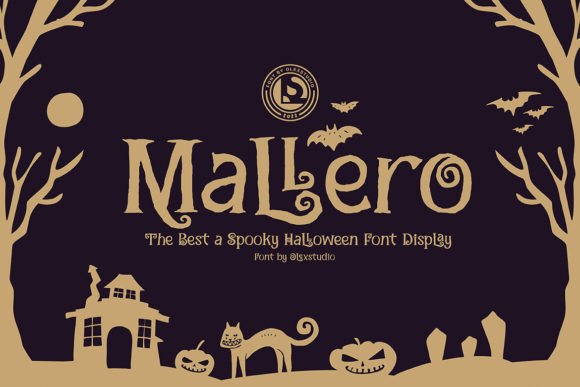
Prepare to be mesmerized by Mallero Font, the dazzling display font that will cast a spellbinding charm on all your creative endeavors. Immerse yourself in the haunting beauty of Halloween with this font, meticulously crafted to evoke the spine-tingling allure of the season. Whether you're conjuring an enchanting invitation or weaving the tale of a ghostly poster, Mallero Font will be your trusted companion.
Unleash your imagination and let Mallero's enchanting curves and captivating strokes transport you to a realm of endless possibilities. Elevate your book designs to spine-chilling heights, crafting covers that whisper tales of mystery and intrigue. With Mallero, your branding materials will exude an aura of enchantment, leaving an indelible mark on your audience. Logos adorned with Mallero's captivating characters will radiate a sinister elegance, capturing attention and igniting curiosity.
Mallero Font's versatility extends beyond the digital realm. Its bewitching presence will enhance any physical project you undertake. Engrave Mallero's characters onto wooden signs, creating eerie decorations that will set the mood for your Halloween gatherings. Embroider Mallero's haunting glyphs onto fabric, crafting spellbinding garments and accessories that will turn heads wherever you go.
With Mallero Font, the creative possibilities are as boundless as the night sky on Halloween. Whether you're a seasoned designer or just starting your artistic journey, Mallero will empower you to manifest your most haunting visions. Its user-friendly nature makes it accessible to designers of all skill levels, ensuring that your creative prowess will shine through.
So, embrace the enchanting embrace of Mallero Font and embark on a creative odyssey that will leave your audience spellbound. Let Mallero's mystical essence elevate your designs to new heights of macabre beauty. Dare to embrace the darkness and let your creativity run wild. Unleash the power of Mallero Font today and weave a web of enchanting designs that will linger in the minds of all who behold them.